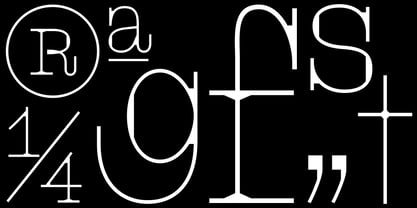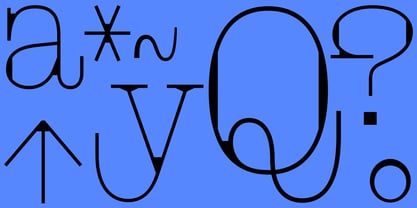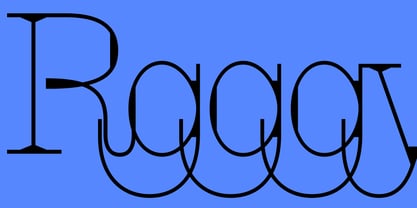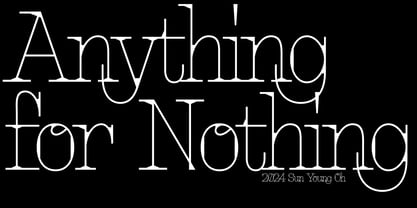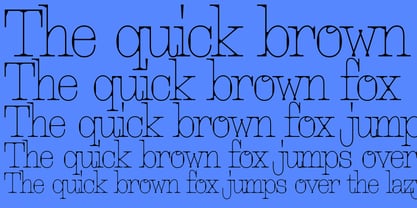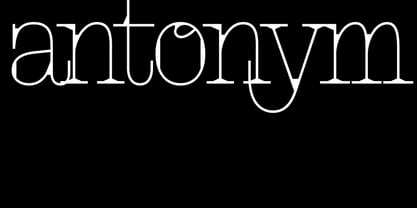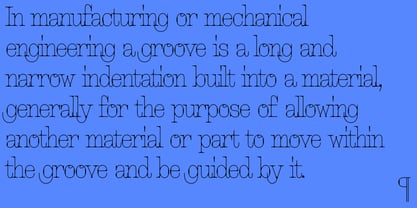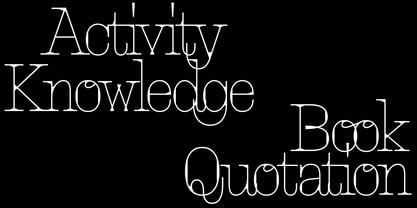
Antonym
by Sun Young Oh
The Antonym Font Family was designed by Sun Young Oh and published by Sun Young Oh. Antonym contains 1 styles. More about this family
The concept of Antonym revolves around the ideas of connection and contrast. It emphasizes the space created by intersecting multiple lines.
The primary lines are thin, long, and sharp, occasionally featuring long, elegantly sweeping tails reminiscent of handwritten script styles. The expansive counter space contrasts with relatively narrow spacing, promoting a close connection between characters and a continuous flow. Ligatures further extend these connections, contrasting the right-angled flow of serifs with disconnected terminals and flowing curves.
In contrast to an ink trap font, this design incorporates rich black spaces, resembling pooled ink. Just as ink accumulates at the intersections of lines, the typeface highlights areas where lines converge, emphasizing the gathering of ink and the thinning of lines.
While the typeface's wireframe is monoline, it doesn't maintain a uniform line thickness. Instead, it places emphasis on areas where lines intersect and form clusters, creating a stark contrast between intense intersections and light lines.
About Sun Young Oh
Sun Young Oh is an independent designer from South Korea, specializing in type and visual materials, which encompass fluid media without a physical format. Her focus lies on branches derived from letter(form)s and the narratives they create in various contexts. With a background in fine art and graphic design, she merges these disciplines, constantly exploring the dynamic interplay between them. She approaches the creative process as a playful exploration, yielding flexible and interactive designs with potential. She embraces randomized concepts to generate unexpected visual results, adding a touch of serendipity to her work.